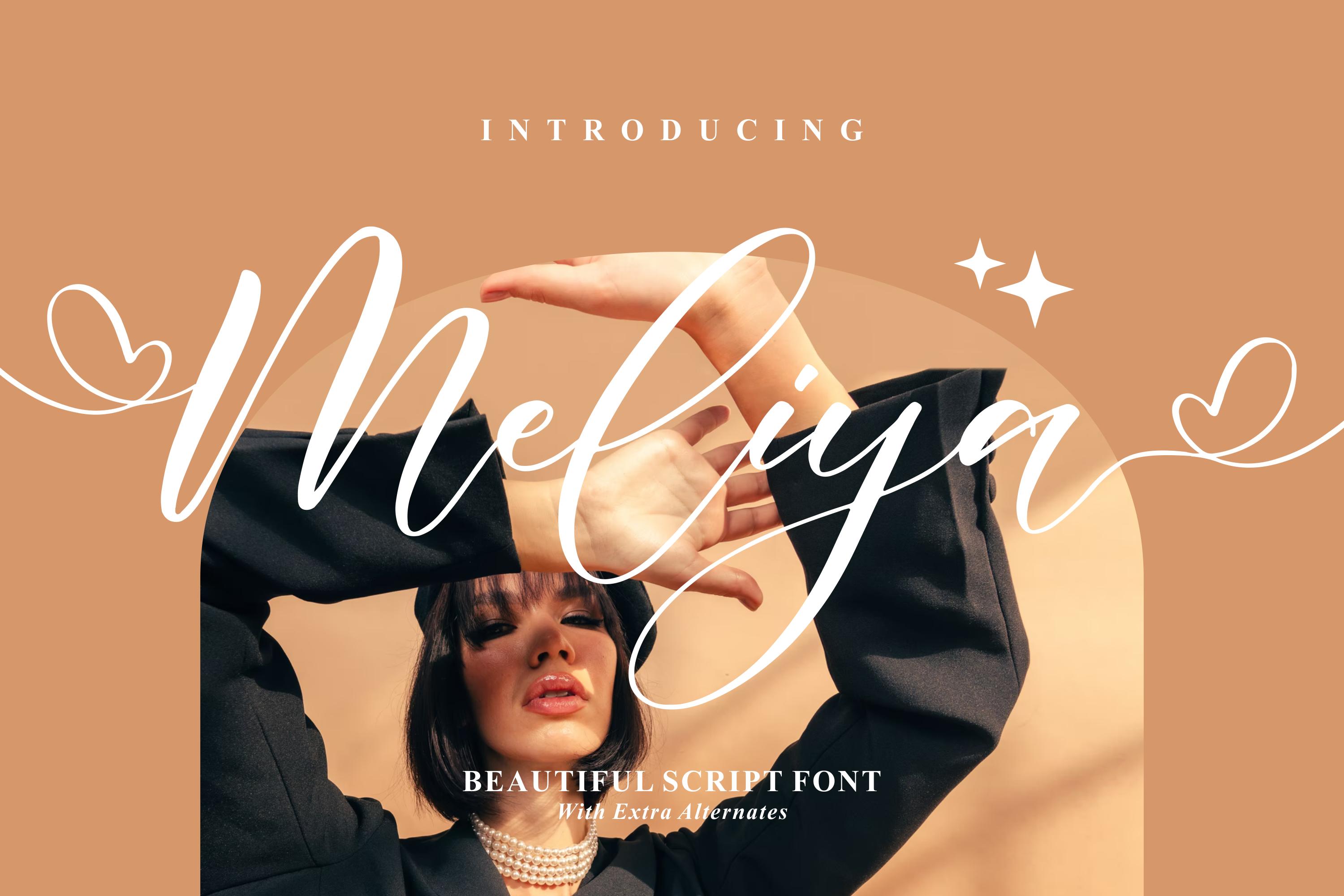
Meliya Font Description
Meliya is a romantic and sweet calligraphy typeface with characters that dance along the baseline. It will add a luxury spark to any design project that you wish to create! Meliya is PUA encoded which means you can access all glyphs and swashes with ease!